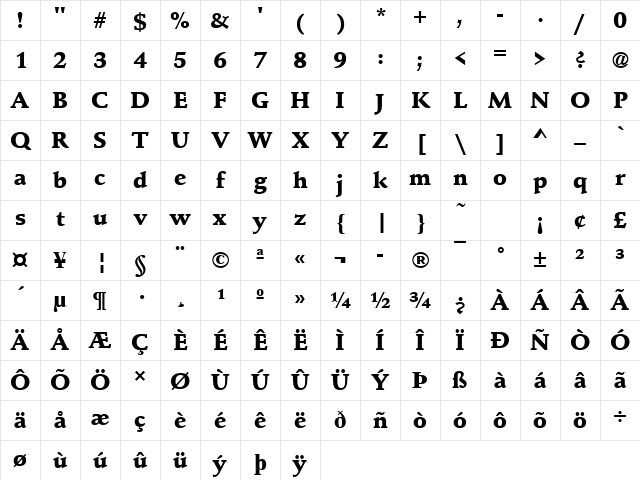
SchneidlerMedTBla Regular
SchneidlerMedTBla Family
Design Context for SchneidlerMedTBla
SchneidlerMedTBla is a composed and adaptable typeface that performs quietly and consistently across a wide range of design contexts.